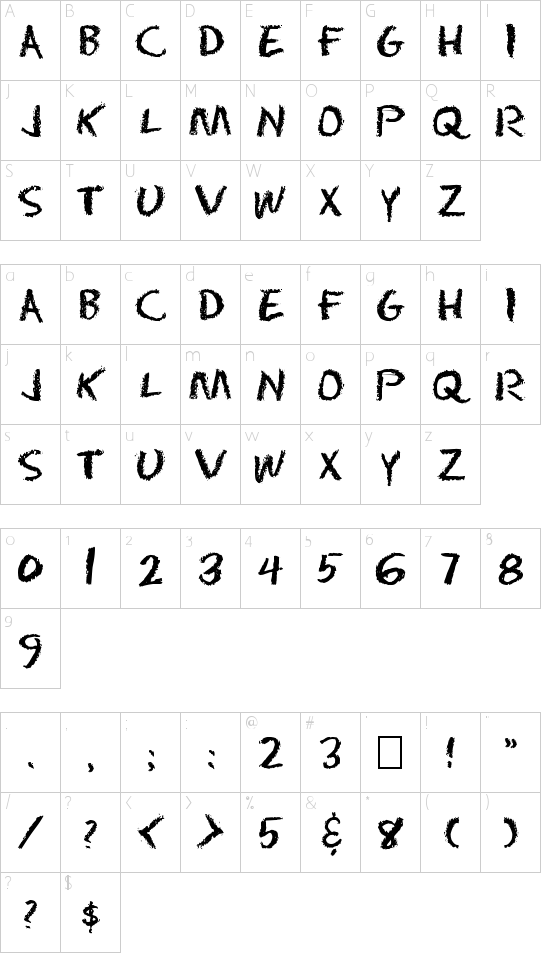
Eraser Icon Svgeraser Icon Pngeraser Icon Jpgeraser Icon Etsy Schriftart Eraser Dust The font is free for both personel and. Eraser dust à by david rakowski. Eraser dust à von david rakowski. Download the eraser dust font by david rakowski. Eraser dust is a script, trash font designed by david rakowski. Eraser dust has been downloaded 205,471 times. Download and install the eraser dust font by david rakowski. The eraser dust font. Schriftart Eraser Dust.
Schriftart Occams Eraser Download Schriftart Eraser Dust View sample text, character map, user rating and review for eraser dust 887,255 downloads (11 yesterday) 5 comments 2 font files. The eraser dust font has been downloaded 205,518 times. The font is licensed as free. Eraser dust has been downloaded 205,471 times. Download eraser dust for free. Download the eraser dust font by david rakowski. The font is free. Schriftart Eraser Dust.
Eraser Dust Yotam Perel Perel Schriftart Eraser Dust Eraser dust à by david rakowski. The eraser dust font has been downloaded 205,518 times. View sample text, character map, user rating and review for eraser dust Download the eraser dust font by david rakowski. The font is licensed as free. 887,255 downloads (11 yesterday) 5 comments 2 font files. Eraser dust à von david rakowski. The font is free. Schriftart Eraser Dust.